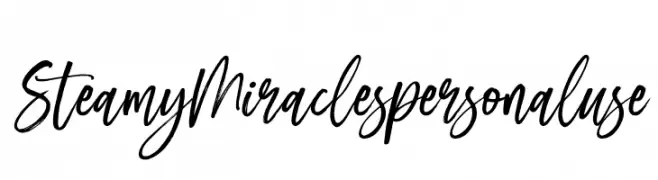
An elegant script font with flowing, interconnected letters and decorative swirls.
An elegant, flowing script font with a modern calligraphic style.
A lively, brush-style handwritten font with dynamic strokes.